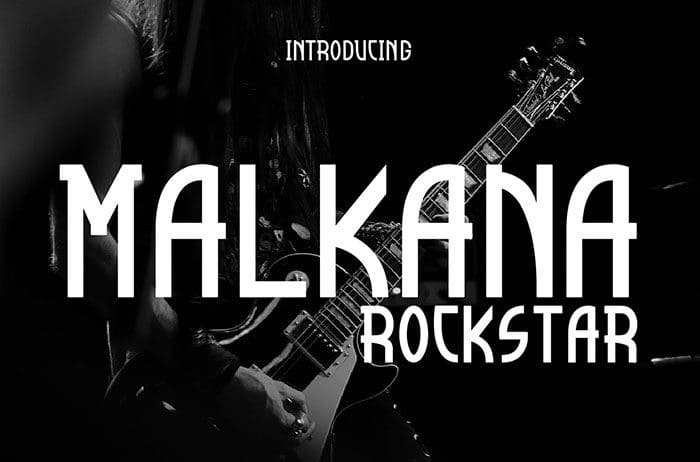
Free Malkana Display Font
Malkana Display Font
Free Malkana display font is inspired by classic typography and brings its own unique style to any design project. It will take your designs to the next level! This font is available only for personal use. Created this font by Jprint Studio. You can also search more freeĀ Display Fonts. Thanks!